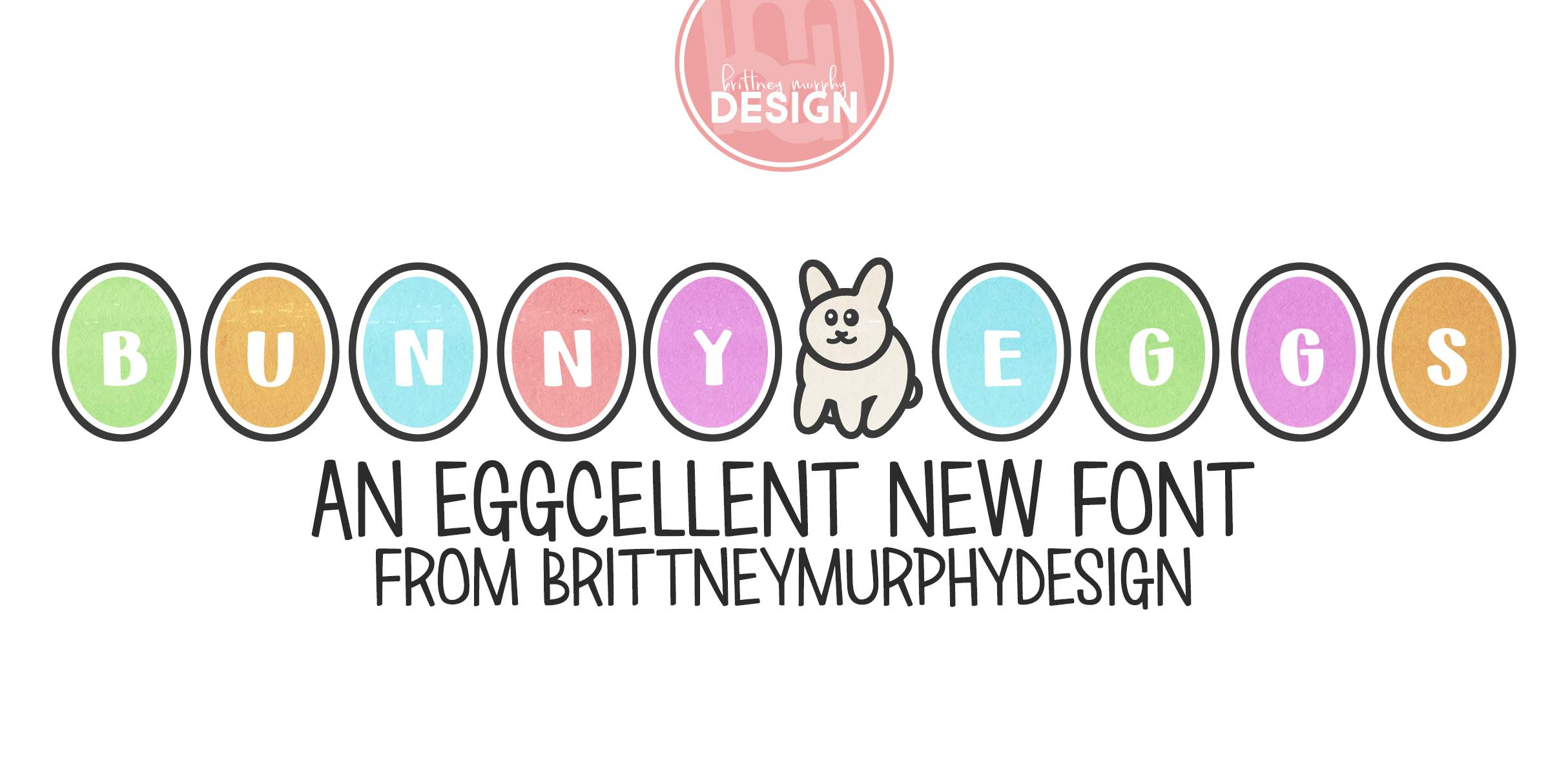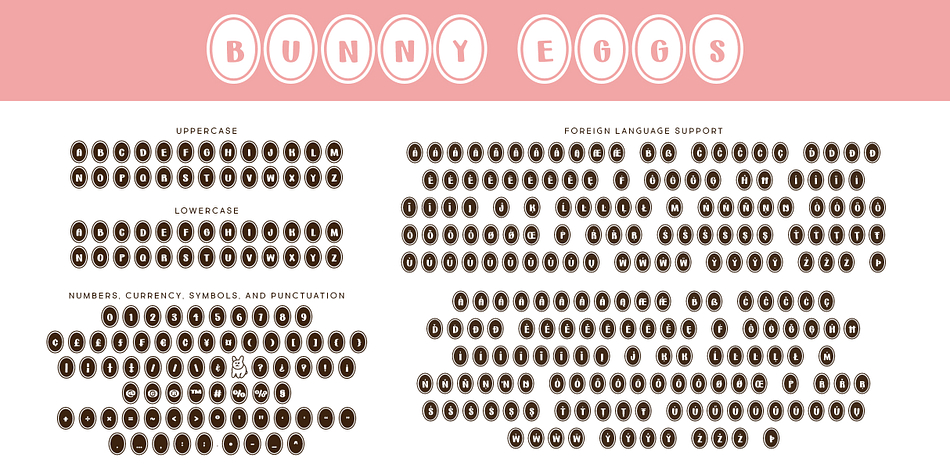
BUNNY EGGS
Designed by Brittney Murphy, Bunny Eggs is an arts and crafts and novelty font family published by Brittney Murphy Design.
Bunny Eggs is a fun font with letters encased in egg-like ovals. Mix the colors up for a cute Easter egg design!
Use the asterisk * for the bunny!
Font contains over 300 characters and supports most Latin-based languages.